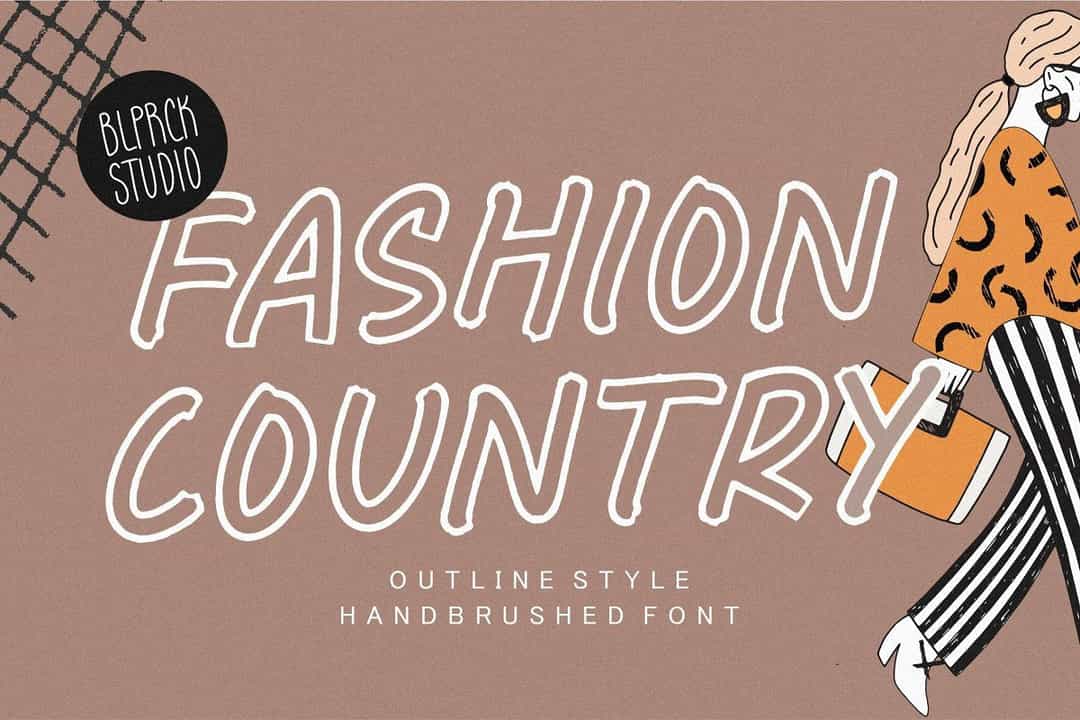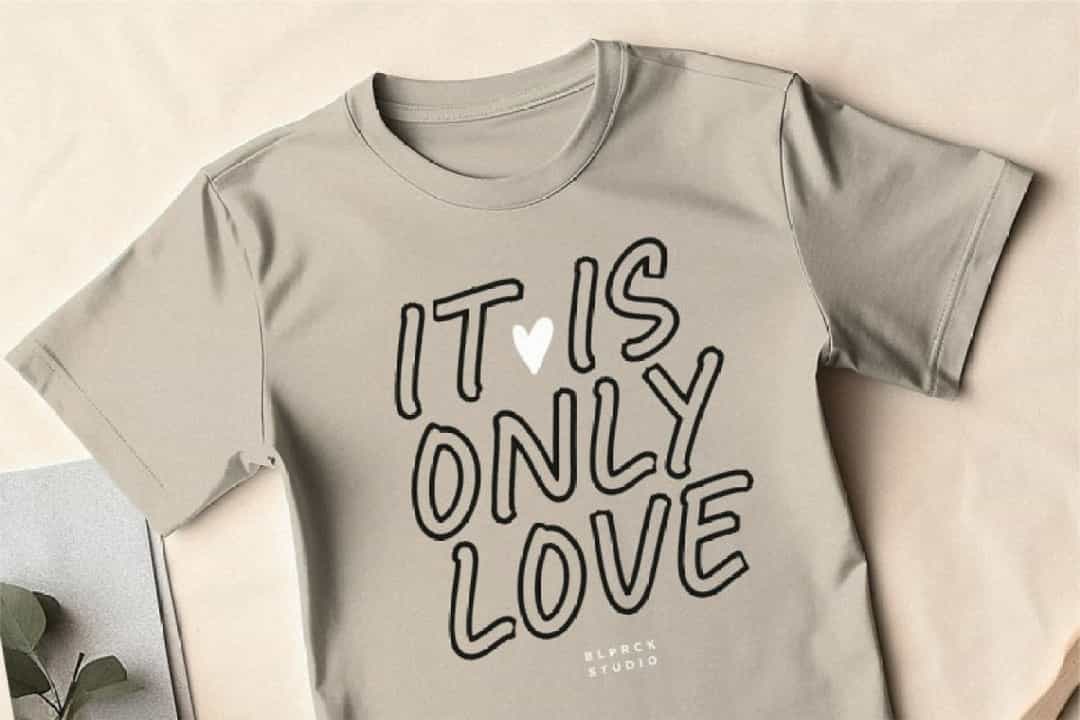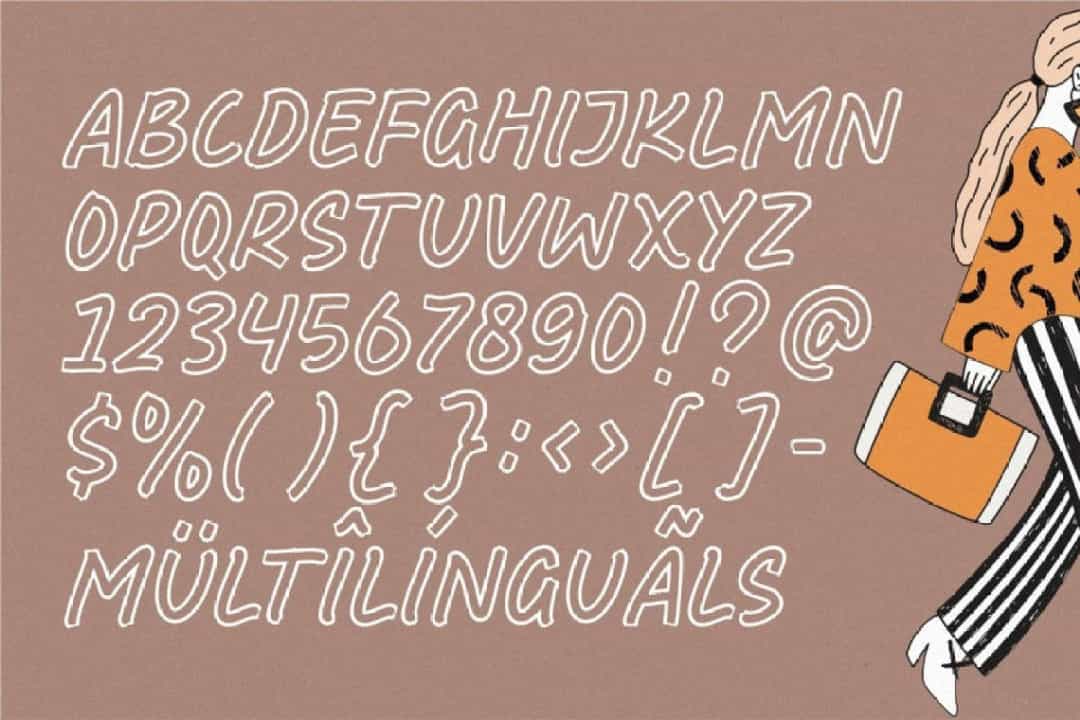
Fashion Country is an outline-style hand-brushed font designed to give a distinctive and captivating visual appeal. Every letter was meticulously drawn by hand capturing all the intricate strokes for an upscale and contemporary appearance that adds classy flare. Our outline-style font will bring life to your words with this elegant yet subtle finish!